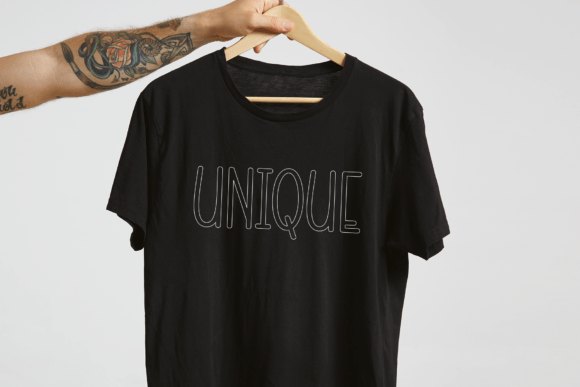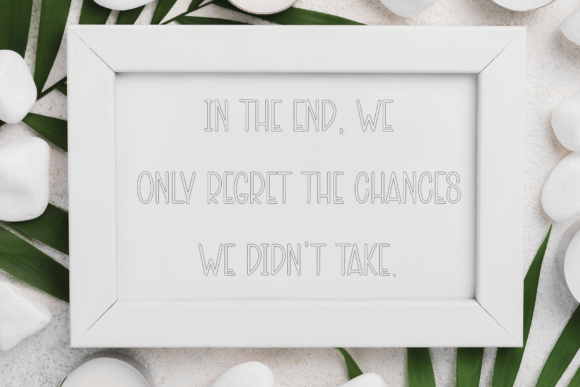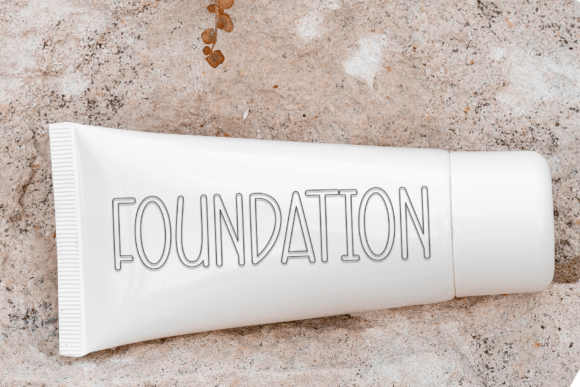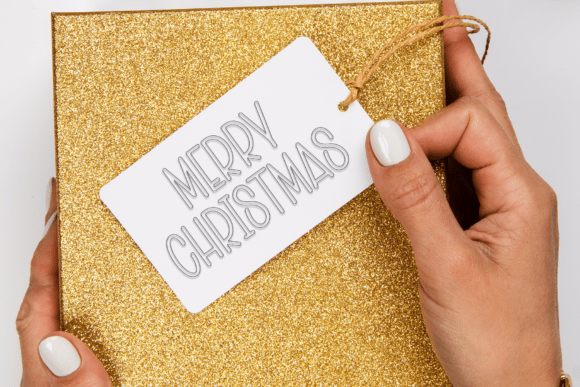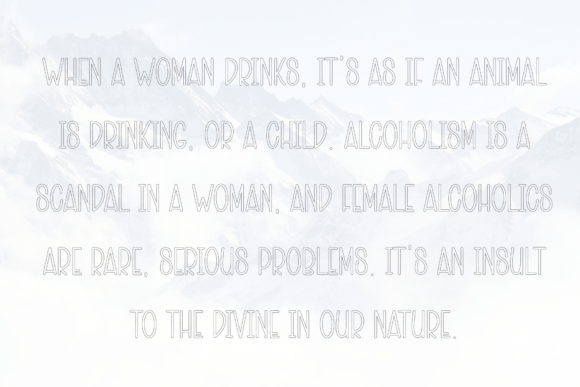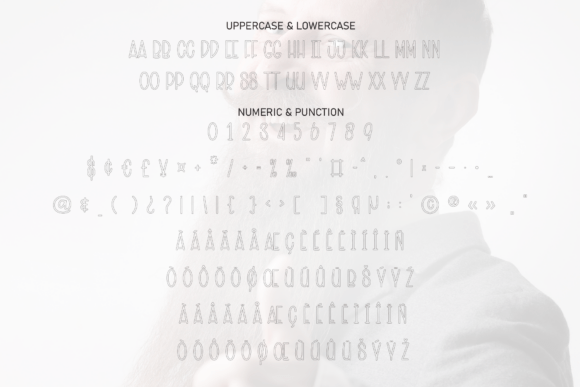
Beardsons Font: The Lovable Handwritten Display Font for Whimsical Designs
Are you looking for a font that exudes warmth and friendliness? Do you want to add a dash of whimsy to your design projects? Look no further than Beardsons Font, the lovable handwritten display font that’s perfect for crafting wedding invitations, cards, and more. In this article, we’ll introduce you to Beardsons Font and explore its features, benefits, and uses.
What is Beardsons Font?
Beardsons Font is a handwritten display font that’s infused with an adorable charm. Its fun and inviting typeface is designed to breathe life into your creations, making them even more special and memorable. With its unique and quirky character, Beardsons Font is perfect for designers and crafters who want to add a personal touch to their work.
Features of Beardsons Font
So, what makes Beardsons Font so special? Here are some of its key features:
- Handwritten style: Beardsons Font has a beautiful, handwritten style that’s perfect for creating personal and unique designs.
- Warm and friendly: The font exudes warmth and friendliness, making it perfect for designs that require a personal touch.
- Adorable charm: Beardsons Font has an adorable charm that’s sure to capture the hearts of your audience.
- Whimsical feel: The font has a whimsical feel that’s perfect for designs that require a dash of playfulness.
- Easy to read: Despite its playful style, Beardsons Font is easy to read, making it perfect for body text and headlines.
Benefits of Using Beardsons Font
So, why should you use Beardsons Font in your designs? Here are some of its benefits:
- Unique designs: Beardsons Font allows you to create unique and personalized designs that stand out from the crowd.
- Emotional connection: The font’s warm and friendly style helps create an emotional connection with your audience.
- Versatility: Beardsons Font is versatile and can be used in a variety of design projects, from wedding invitations to social media graphics.
Uses of Beardsons Font
So, what can you use Beardsons Font for? Here are some ideas:
- Wedding invitations: Beardsons Font is perfect for creating beautiful and unique wedding invitations.
- Cards and stationery: The font is great for creating personalized cards and stationery.
- Social media graphics: Beardsons Font can be used to create fun and engaging social media graphics.
- Logos and branding: The font can be used to create unique and memorable logos and branding.
- Signs and posters: Beardsons Font is perfect for creating eye-catching signs and posters.
Tips for Using Beardsons Font
Here are some tips for using Beardsons Font:
- Use it sparingly: Beardsons Font is a display font, so use it sparingly to create emphasis and visual interest.
- Pair it with other fonts: The font pairs well with other fonts, so experiment with different combinations to create a unique look.
- Adjust the size and color: Adjust the size and color of the font to create visual hierarchy and emphasis.
In conclusion, Beardsons Font is a lovable handwritten display font that’s perfect for designers and crafters who want to add a dash of whimsy to their designs. With its unique and quirky character, warm and friendly style, and adorable charm, Beardsons Font is sure to capture the hearts of your audience. So, why not give it a try and see how it can elevate your designs?